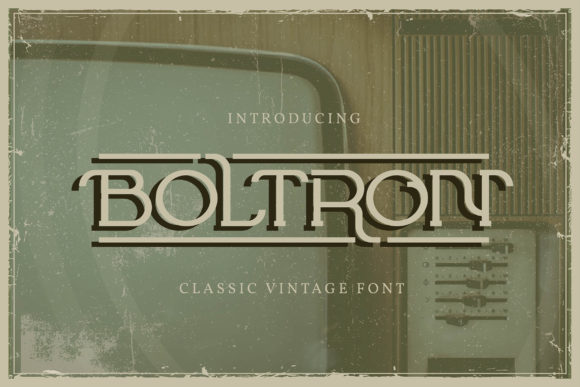
**Boltron Font: A Timeless Masterpiece for Your Wedding Invitations**
In the realm of fonts, there exists an exquisite gem known as Boltron, where elegance and vintage charm harmoniously intertwine. This captivating display font, crafted by the ingenious minds at Vunira, promises to transform your wedding cards into breathtaking works of art. With its bold strokes and intricate details, Boltron effortlessly captures the essence of timeless sophistication, leaving an indelible mark on the hearts of your loved ones.
As you embark on the journey of planning your special day, allow Boltron to become your trusted companion, guiding you towards a truly unforgettable celebration. Picture your wedding invitations adorned with this enchanting font, exuding an aura of elegance that sets the tone for your momentous occasion. Its vintage-inspired aesthetic evokes a sense of nostalgia, transporting your guests to a bygone era of romance and grandeur.
Boltron's meticulous design ensures that every letter, every curve, and every flourish is crafted with utmost precision. Its bold strokes command attention, while its intricate details add a touch of whimsy and charm. Whether you envision a classic and timeless look or a more contemporary and playful style, Boltron's versatility knows no bounds.
With Boltron at your disposal, you gain access to a world of creative possibilities. Unleash your imagination and let the words dance across the page, creating a visual masterpiece that reflects the love and joy of your union. From save-the-dates to wedding programs and menus, Boltron will effortlessly elevate every element of your wedding stationery, ensuring a cohesive and visually stunning presentation.
Take advantage of Boltron's PUA encoding, which grants you effortless access to a treasure trove of glyphs and swashes. These embellishments, like delicate brushstrokes, add an extra layer of artistry to your designs, transforming them into captivating works of art. With Boltron, the possibilities are limitless, and your wedding stationery will undoubtedly leave a lasting impression on all who behold it.
So, as you embark on this joyous chapter of your life, let Boltron be your font of choice, the perfect complement to your love story. Allow its timeless charm and elegant strokes to convey the depth of your emotions, transforming your wedding cards into cherished keepsakes that will be treasured for years to come.